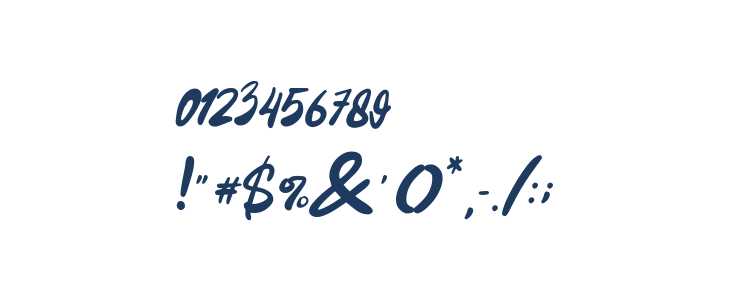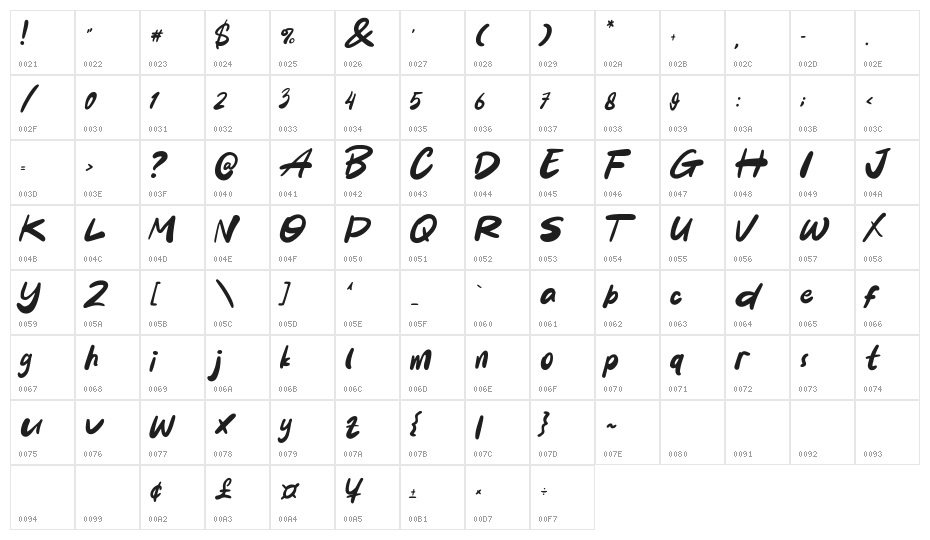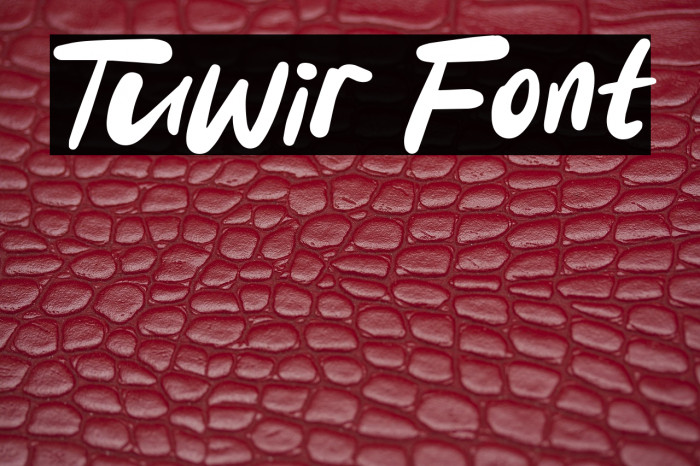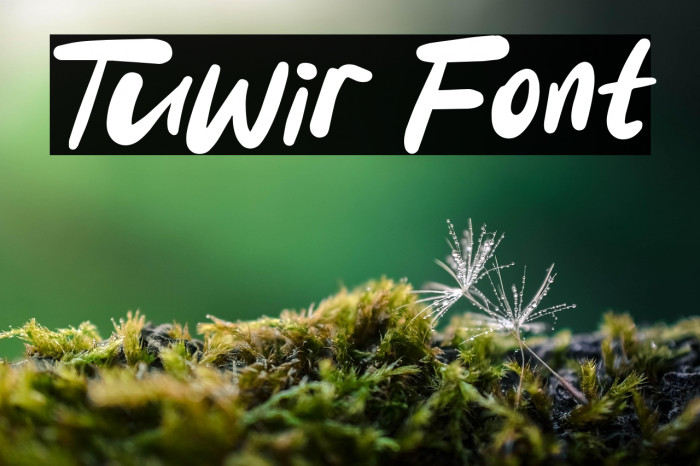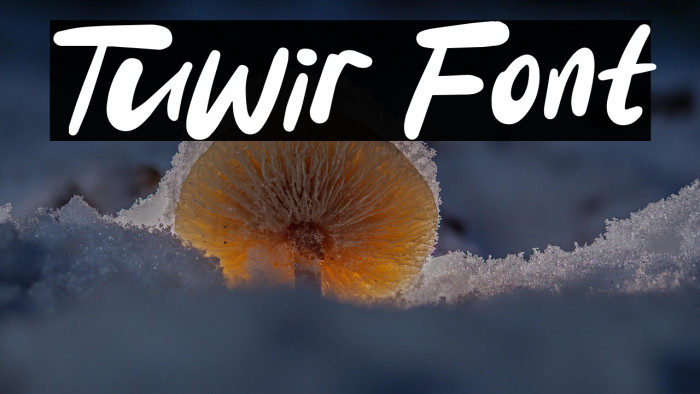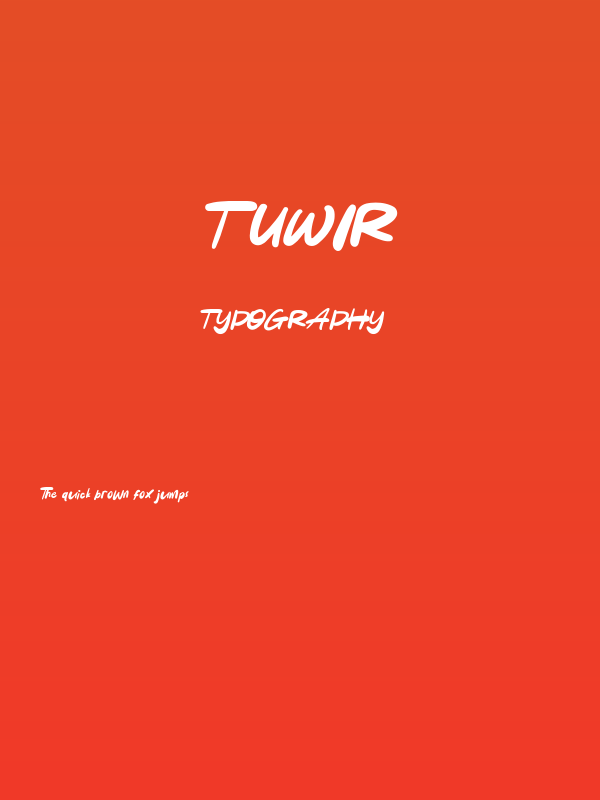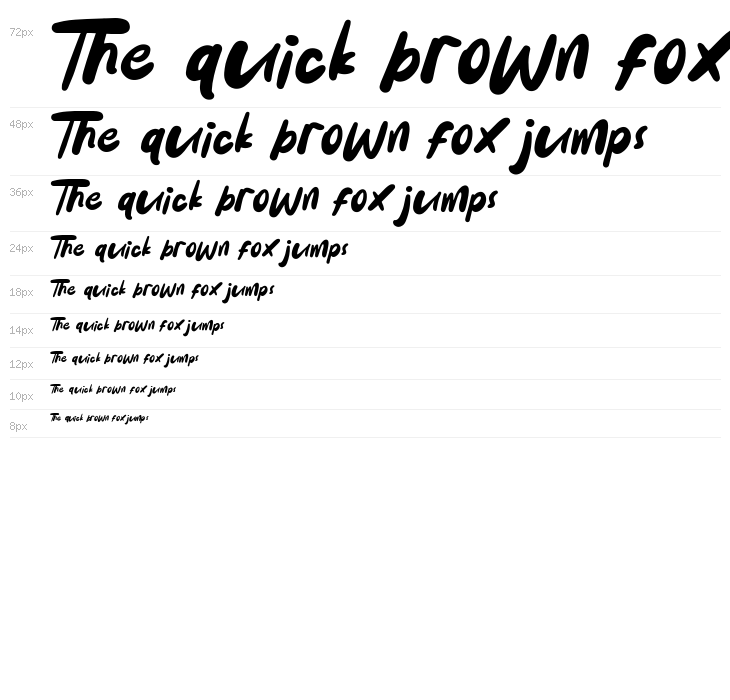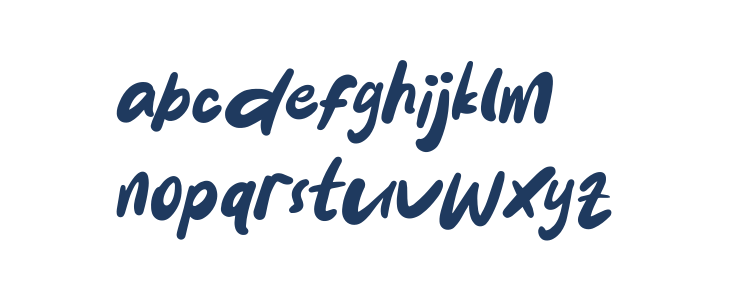
Tuwir Font
Tuwir Description
This font features a bold and dynamic script style, characterized by its fluid and connected letterforms. The strokes are thick and consistent, giving it a strong presence. The uppercase letters maintain a cohesive flow, while the lowercase letters exhibit a playful and casual appearance. Numbers and special characters follow the same bold and expressive style, making them stand out. The overall design is energetic and modern, suitable for projects that require a lively and engaging typeface.
| Use Case | Logos, Headlines, Posters |
| Proposed Projects | Ideal for branding, posters, invitations, and any design needing a lively and engaging script. |